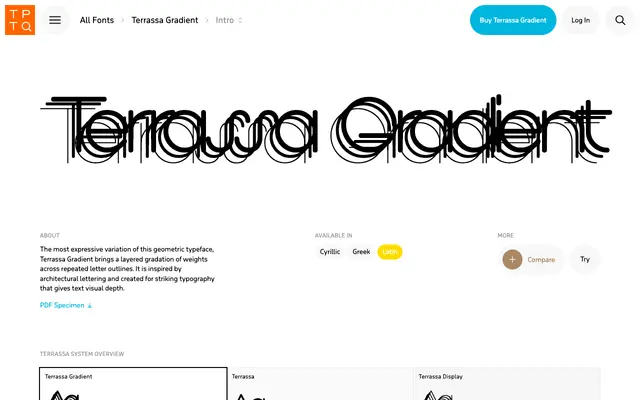
Terrassa Gradient
A variable display typeface by Nikola Djurek that uses stepped weight transitions to simulate depth and motion, drawn from the monolinear lettering of architectural plans.
Part of the three-member Terrassa system, Terrassa Gradient applies five variable axes to produce the illusion of depth and movement through graduated stroke weights. The design traces its formal logic to technical drawing conventions, building letterforms from modular geometry rather than calligraphic tradition. It ships as a variable font specifically because the five axes would generate over 10,000 static variants, and supports Latin, Cyrillic and Greek scripts with an extensive language list.
Terrassa Gradient is a variable display typeface built from modular, monolinear letterforms derived from architectural drafting conventions. The stepped weight transitions and depth-effect layering place it firmly in the display category, with geometric construction as its primary formal logic.